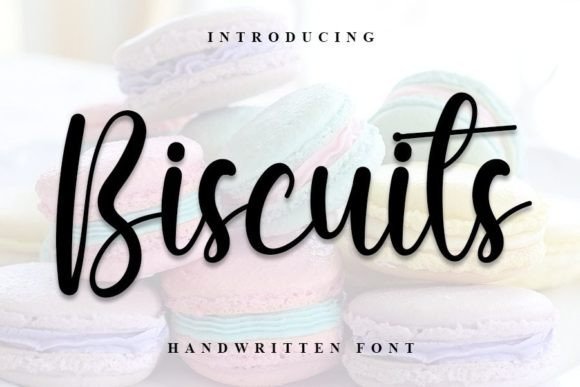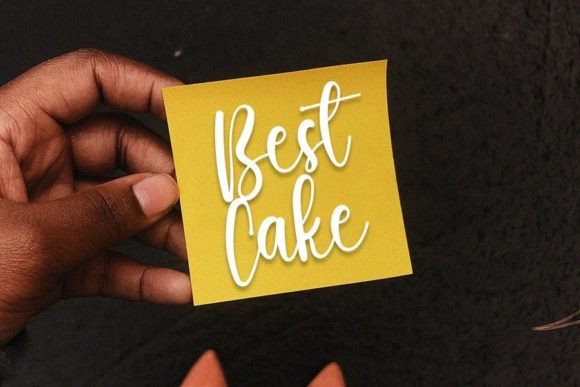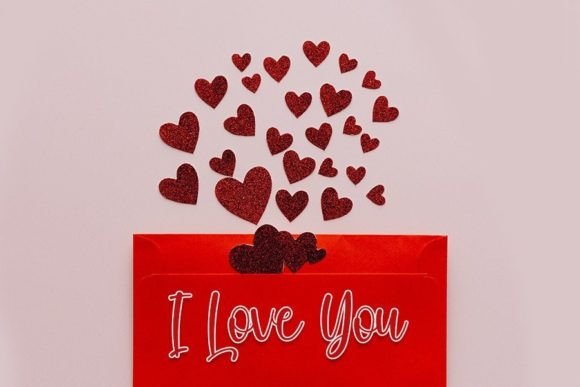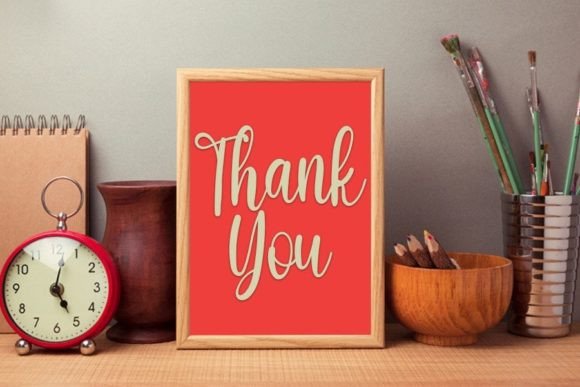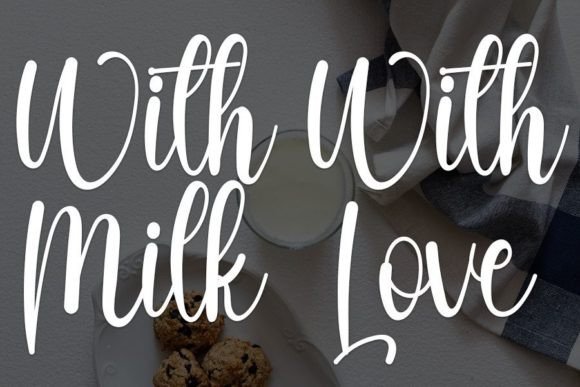
Biscuits Font
About Biscuits Font
Biscuits is a beautifully crafted and well-rounded handwritten font, designed to infuse an authentic touch into your crafty projects. This versatile font is an excellent choice for a variety of creative endeavors, ranging from wedding invitations and birthday cards to personal branding and elegant logos. With its delicate and nuanced design, Biscuits adds a unique charm that enhances the authenticity of your typography.
The delicate strokes of Biscuits make it particularly well-suited for creating an intimate and personalized atmosphere in wedding invitations. The font’s attention to detail contributes to a memorable design that captures the essence of special moments. Additionally, envision Biscuits lending its crafted aesthetic to birthday cards, imbuing your messages with a genuine and heartfelt touch.
In the realm of personal branding, Biscuits offers a distinctive and well-rounded typographic identity. Its delicate design strikes a balance between approachability and sophistication, making it an excellent choice for creating an authentic connection with your audience. Incorporating Biscuits into elegant logos allows for the creation of a signature look that reflects creativity and genuine craftsmanship.
The font’s versatility extends to various crafting projects where an authentic and well-rounded touch is desired. Whether you’re involved in DIY endeavors, crafting handmade goods, or undertaking any creative project that demands genuine and well-rounded typography, Biscuits emerges as an excellent choice.
In conclusion, Biscuits is more than just a font; it’s a design element that adds a delicate and well-rounded authenticity to your crafty projects. Elevate your creative endeavors, from invitations to personal branding, with the genuine and well-rounded charm of Biscuits. Let this font be the authentic touch that brings a crafted and personalized feel to your designs, making them stand out with a unique and heartfelt appeal.